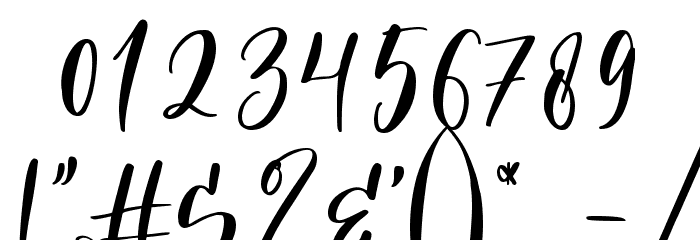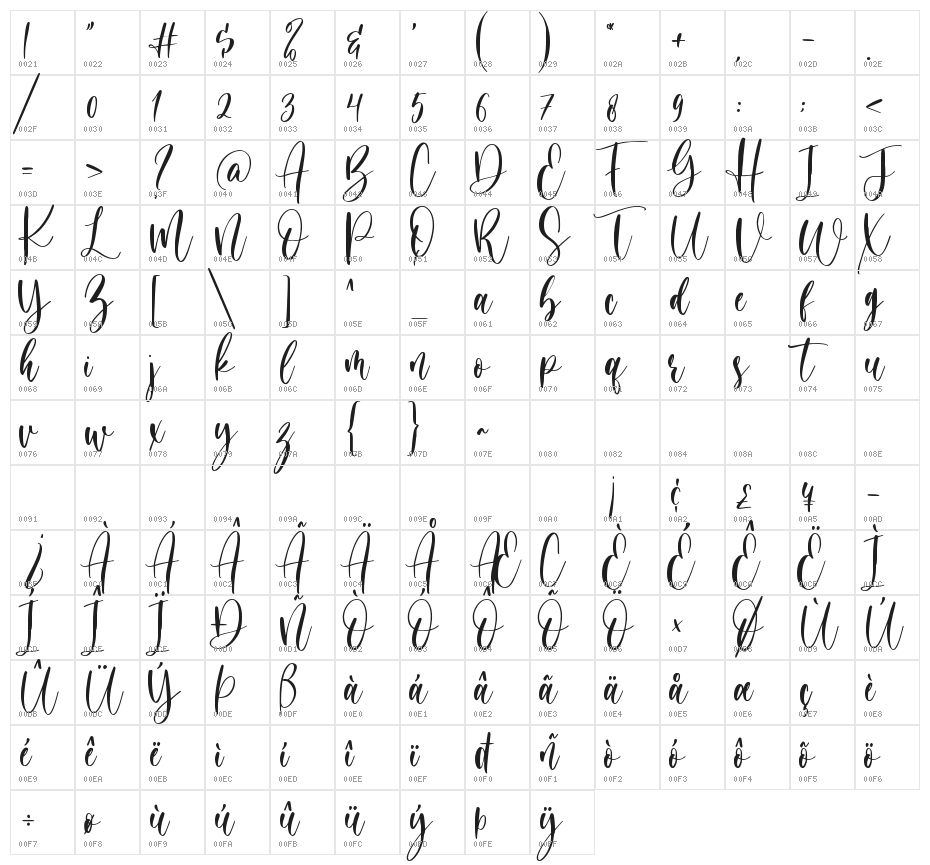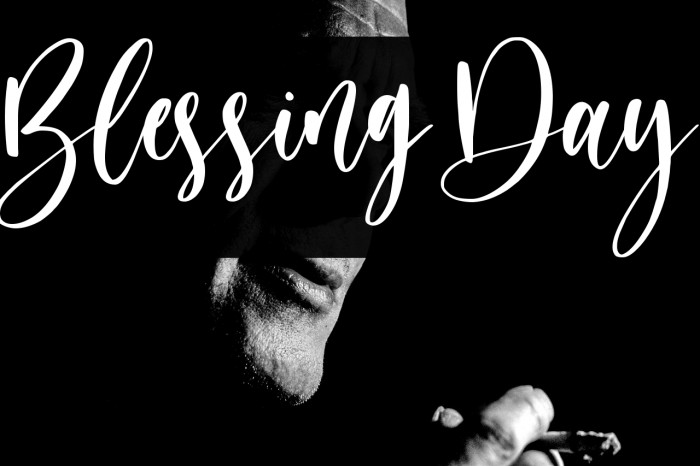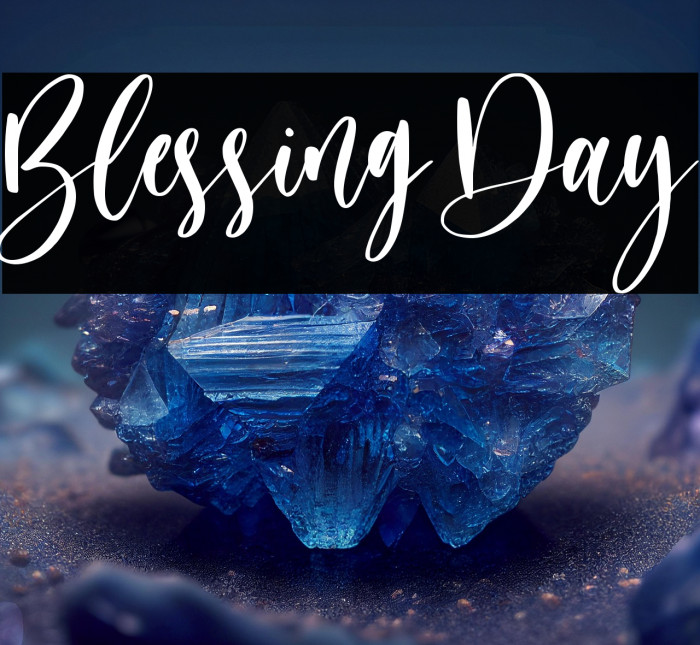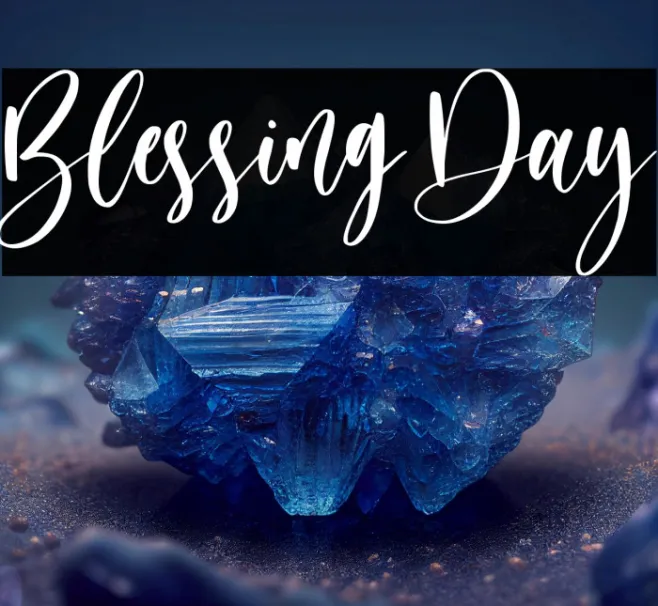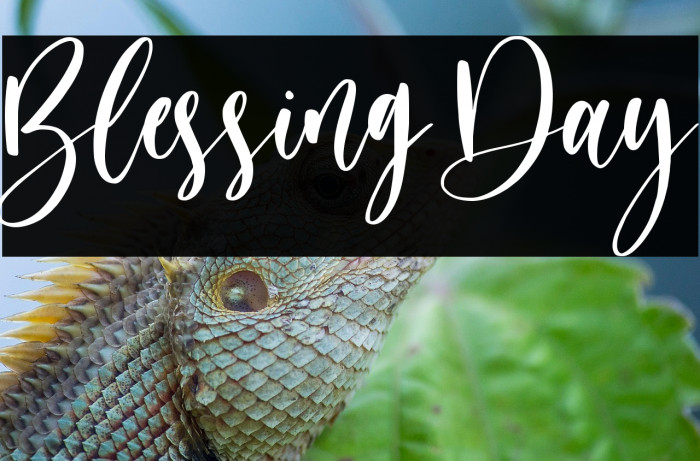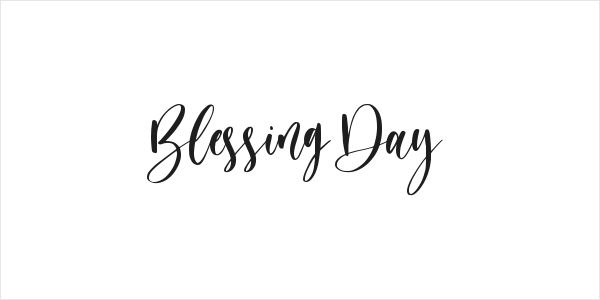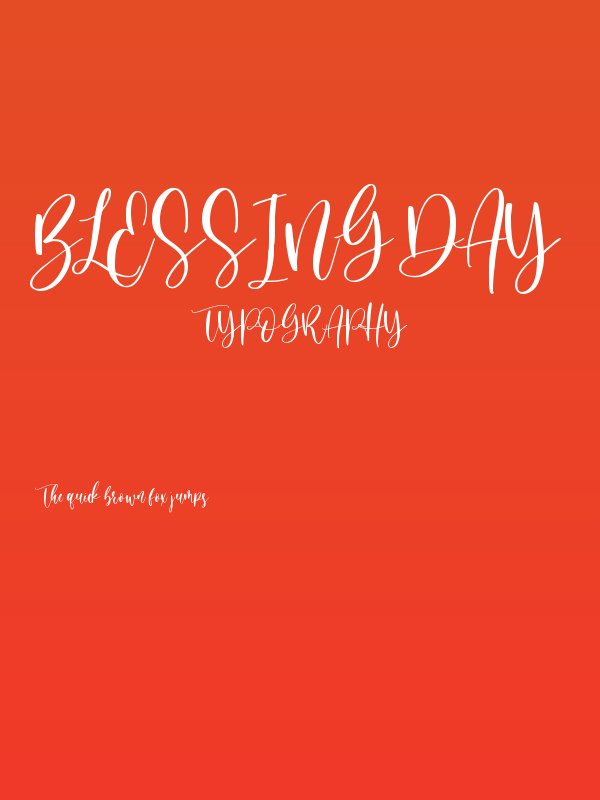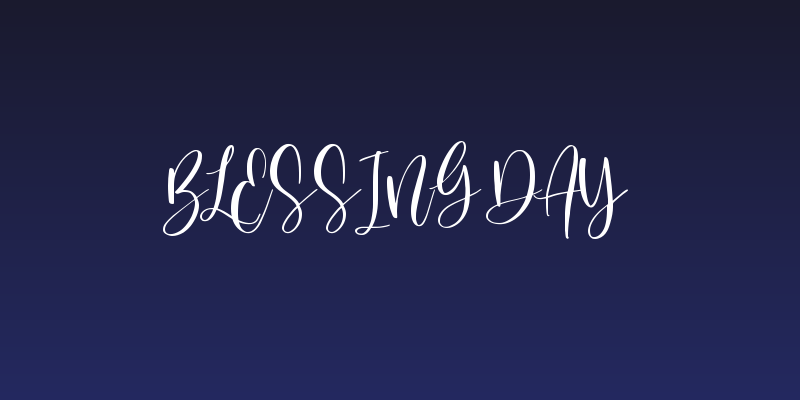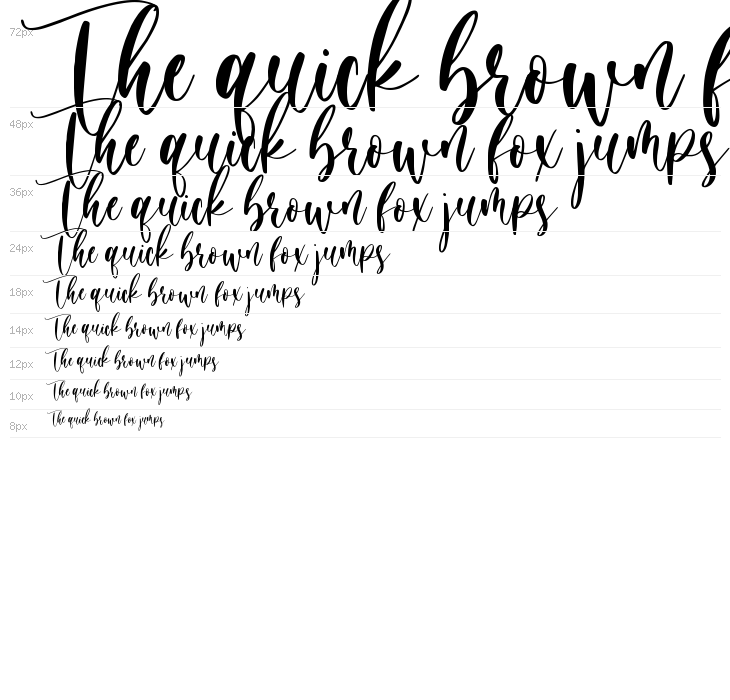
Blessing Day Font
This font exudes a lively and expressive character, with its flowing script style that mimics natural handwriting. The letters are elegantly connected, creating a seamless and fluid appearance. The strokes vary in thickness, adding a dynamic and artistic flair to the text. The uppercase letters are bold and prominent, while the lowercase letters maintain a graceful and consistent flow. The numerals and special characters are crafted with the same attention to detail, ensuring a cohesive look across all elements. This font is perfect for projects that require a personal touch, such as invitations, greeting cards, and branding materials.
| Proposed Projects | Ideal for invitations, greeting cards, branding, and any project needing a personal, artistic touch. |